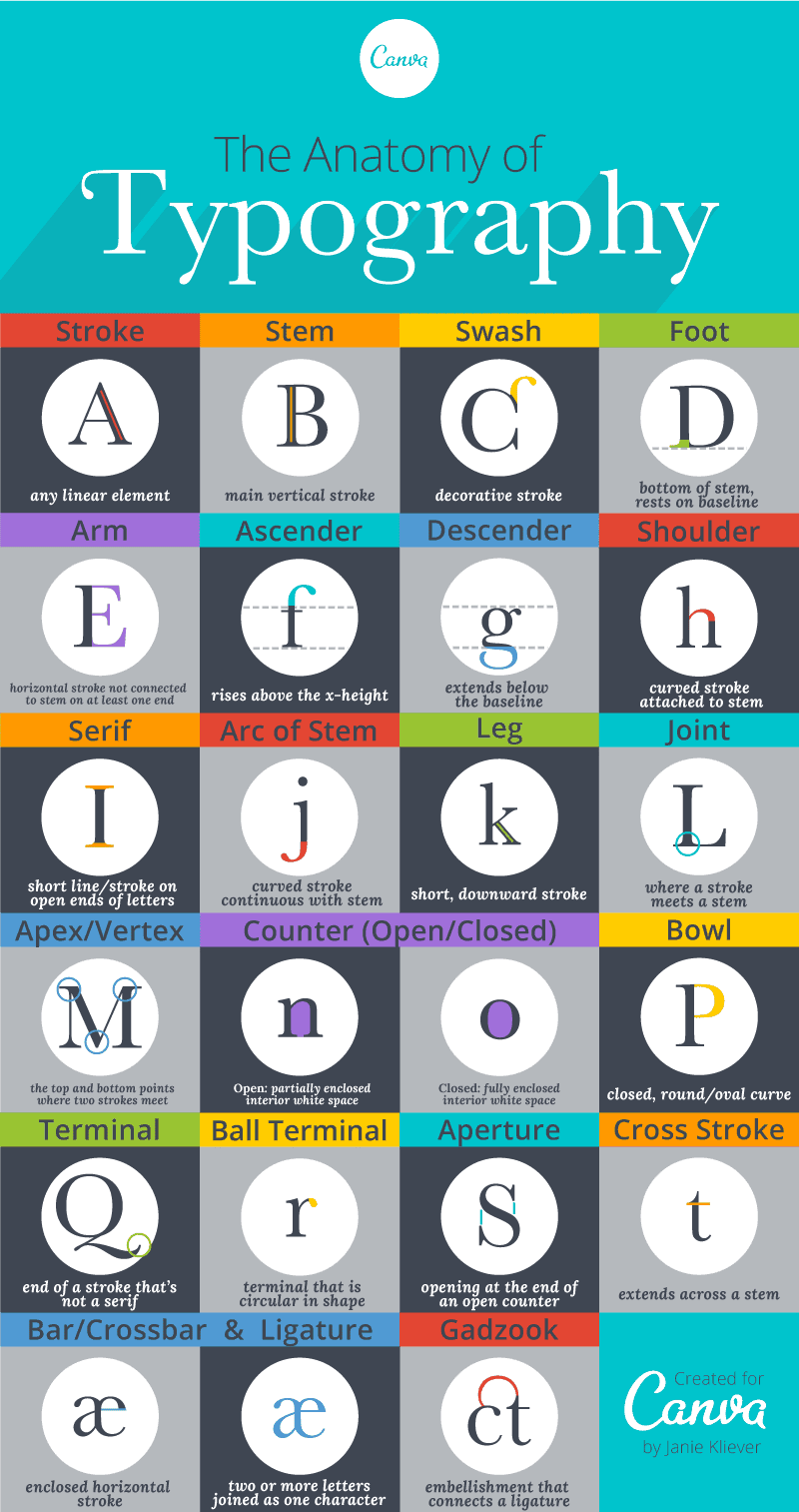
Typography Terminology: From Apex to Swash and the Gadzook In Between… Everything You Need To Know About Fonts
My main hobby growing up, when I wasn’t getting into trouble, was drawing. I even took a couple of years of drafting courses while in High School and loved it. It may explain why I often have articles or posts on graphics, Illustrator, illustrations, and other design topics. Today, it’s typography and the design of fonts.
Typography and the Letterpress
If you want to take a step back in the history of fonts and typography, this is a great little film on the lost art of the Letterpress.
The Psychology of Fonts
After decades of working in both print and online, I believe I have a good eye for great design and fonts play an incredible role in the presentation of a brand, evoking emotional responses. In fact…
Not only is the appearance of text an important consideration for brands, but the appearance of different fonts can also have psychological effects on the viewer. By changing the style of font, choosing a more emotional font or a powerful font, a designer can make the viewer feel and respond differently towards a brand.
The Psychology of Fonts
Psychology of Fonts - Serif, Slab Serif, Sans Serif, Modern, Script, Display
Still have doubts as to the power of fonts? There’s even an exceptional video providing the history of type fonts and war available on YouTube. And, of course, be sure to check out the movie Helvetica (on iTunes and Amazon):
Font Types and Typographic Design
There’s incredible detail and workmanship accomplished in the design of fonts by Typographers. Here’s a cool little video on typography… many people don’t know all the work that goes into font design and how important a role fonts can play in your messaging.
One note: This is a great video for explaining all the properties of a font, but I don’t really like the fonts they use in the video. Wanted to share it with you anyways! That way when you want to explain to your designer that you want more space between letters, you can speak their language and say, “Can we try increasing the kerning?”
Typography is fascinating to me. The talent of designers to develop fonts that are both unique and even able to express an emotion is nothing short of incredible. But what makes up a letter? Diane Kelly Nuguid put together this infographic to provide insight into different parts of a letter in typography:
Anatomy of Typography
Typography Terminology Glossary
But there’s much, much more to the art of typography. Here’s every aspect and characteristic that are designed into a font by Typographers.
1. Aperture – The opening or partially enclosed negative space created by an open counter.
2. Apex – The uppermost connecting point of a letterform where two strokes meet; may be rounded, sharp/pointed, flat/blunt, etc.
3. Arc of Stem – A curved stroke that is continuous with a stem.
4. Ascender – A portion of the font that ascends beyond the height of a character.
5. Arm – A horizontal stroke that does not connect to a stem on one or both ends.
6. Bar – The horizontal stroke in characters A, H, R, e, and f.
7. Baseline – The horizontal alignment of the base of the letters.
8. Bowl – A curved stroke which creates a counter.
9. Counter – The partially or fully enclosed space within a character.
10. Cross Stroke – A line that extends across/through the stem of a letter.
11. Descender – The part of a character that sometimes descends below the baseline, typically in a g, j, p, q, y and sometimes j.
12. Ear – The small stroke that projects from the top of a lowercase g.
13. Foot – The part of the stem that rests on the baseline.
14. Gadzook – The embellishment that connects the two letters in a Ligature.
15. Joint – The point where a stroke connects to a stem.
16. Kerning – The distance between letters in a word.
17. Leading – The distance between the baseline of one line of text to the next.
18. Leg – A short, descending stroke on a letterform.
19. Ligature – Two or more letters that are connected to form one character; primarily decorative.
20. Line length – How many characters fit in a line before you return to the beginning.
21. Loop – The lower portion of the lowercase g.
22. Serif – The projections extending off the main strokes of a character. Sans serif literally means ‘without’ Serif. Serif-based fonts have been known to help people read faster since the shape of the word is better defined.
23. Shoulder – The curved stroke of the h, m and n.
24. Swash – A decorative extension or stroke on a letterform.
25. Stem – The main straight, vertical stroke in a letter (or diagonal when there are no verticals).
26. Stroke – A straight or curved line that makes up the bars, arms, stems and bowls.
27. Terminal – The end of any stroke that doesn’t include a serif; includes ball terminals (circular in shape) and finials (curved or tapered in shape).